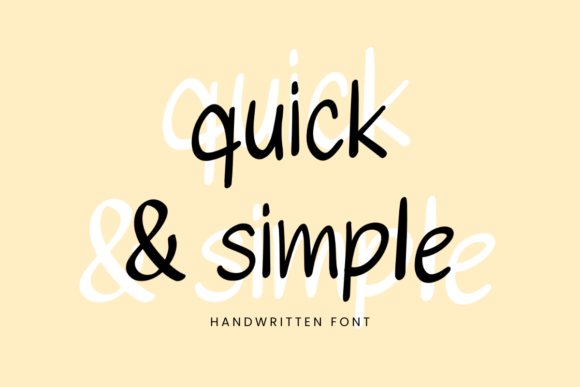
Journey into the realm of typography and discover Quick and Simple Font, the ultimate solution for your creative endeavors. This remarkable script font family, meticulously crafted by The Magic Bee Studio, embodies the essence of clarity and elegance, transforming your designs into captivating expressions of simplicity.
Embrace the power of Quick and Simple Font and experience the fusion of readability and legibility. Its clean lines and straightforward letterforms dance effortlessly across digital and print spaces, ensuring that your messages are conveyed with precision and impact. Whether crafting minimalist branding, designing user-friendly interfaces, or creating streamlined layouts, this font is your steadfast companion.
Unleash your creativity with Quick and Simple Font and let its no-nonsense approach guide you towards design excellence. Its modern sophistication adds a touch of intrigue to your projects, while its timeless appeal ensures lasting relevance. Simplify your typography while maintaining a professional aesthetic, leaving a lasting impression on your audience.
Indulge in the versatility of Quick and Simple Font and unlock a world of design possibilities. Its adaptability shines across a myriad of applications, from logos and branding to web design and social media graphics. Manifest your creative vision with this versatile font, seamlessly adapting to your design needs and delivering exceptional results.
Embrace the simplicity, clarity, and elegance of Quick and Simple Font today. Experience the transformative power of typography as you craft designs that resonate with your audience. Elevate your creative projects to new heights and leave an indelible mark on the world of design. Quick and Simple Font: the key to unlocking your typographic potential.